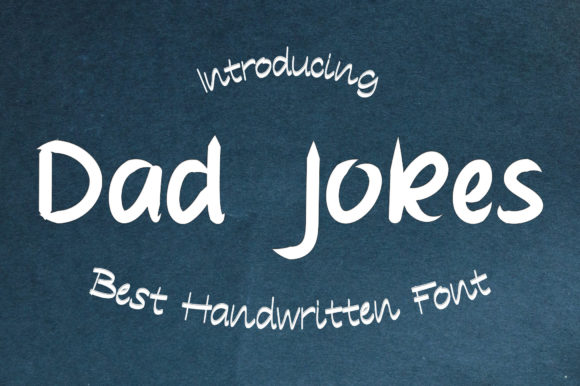
Unleash the Laughter with Dad Jokes Font: A Handwritten Gem for Quirky Creations
In a world where humor reigns supreme, let Dad Jokes Font take center stage as your go-to font for hilariously charming designs. This meticulously crafted handwritten font exudes a playful spirit that promises to infuse your creative projects with an infectious dose of laughter. Whether you're a seasoned designer or a novice just starting out, Dad Jokes Font is your ticket to crafting designs that resonate with audiences of all ages.
With its whimsical strokes and jovial charm, Dad Jokes Font is a font style for script that will elevate your designs to new heights of hilarity. Its playful personality shines through in every letter, adding a touch of lightheartedness to any project it graces. Imagine the smiles and chuckles you'll evoke when your audience encounters your designs adorned with Dad Jokes Font.
But don't let its comedic nature fool you; Dad Jokes Font is a versatile font that seamlessly adapts to a wide range of creative endeavors. Whether you're designing witty social media posts, quirky invitations, or eye-catching logos, Dad Jokes Font has the versatility to transform your ideas into laughter-inducing masterpieces.
Dive into the world of Dad Jokes Font and discover a treasure trove of creative possibilities. Let your imagination run wild as you craft designs that tickle funny bones and leave a lasting impression. From humorous greeting cards to playful posters, the possibilities are endless with this font by your side.